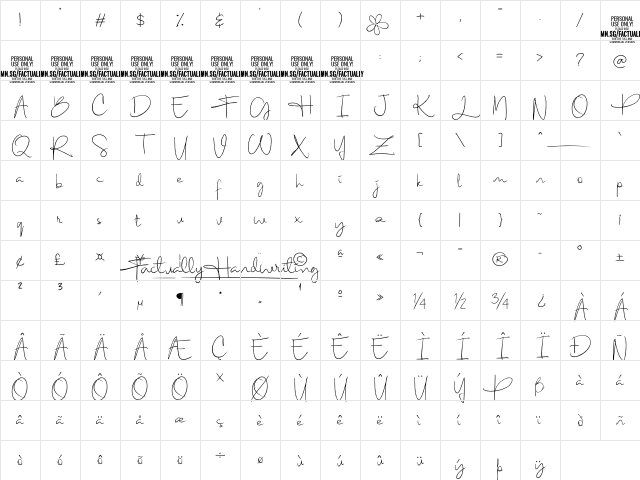
Factually Handwriting PERSONAL Regular Free Font
Factually Handwriting PERSONAL Regular
Foundry: Mans Greback AB
Designer: Mans Greback
Design Context for Factually Handwriting PERSONAL
Factually Handwriting PERSONAL flows with the natural rhythm of handwritten lettering, making it ideal for designs that call for warmth and personal expression.
Font Pairing: Combine Factually Handwriting PERSONAL with a simple geometric sans for maximum contrast - the tension between flowing curves and clean structure is a classic typographic pairing.
Pro Tip: Use Factually Handwriting PERSONAL for short runs of text - names, titles, or taglines. Extended body copy in script faces tires the eye quickly.